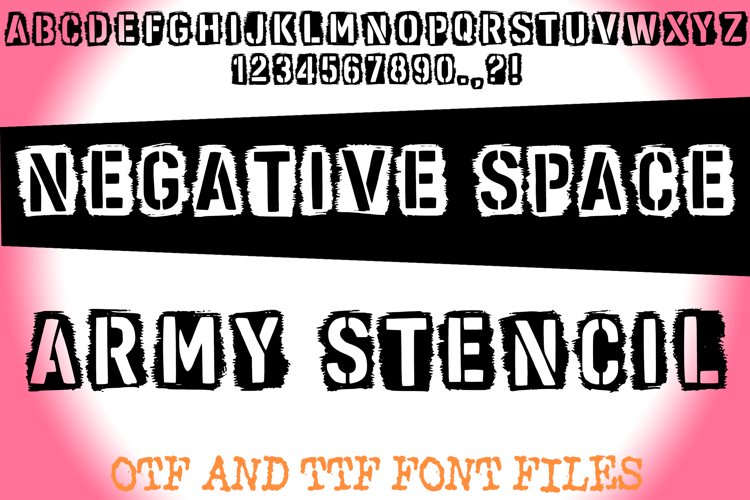
Negative Space Army Stencil Lettering ABC Font Typeface
Command attention with Negative Space Army Stencil Font! This powerful and gritty typeface ingeniously combines the rugged efficiency of military stencils with a striking negative space effect, all encased in a raw, distressed texture. It's more than just a font; it's a strategic visual tool designed to make a bold, impactful, and instantly recognizable statement in any creative project.
Each character in Negative Space Army Stencil Font features classic stencil breaks, but the true brilliance lies in how the letterforms are carved out of a textured, almost painted background. This creates an authentic, worn-out feel, reminiscent of industrial markings, cargo crates, or battle-worn gear. Ideal for crafting military-themed designs, edgy branding, game titles, urban posters, protest art, or any project that demands a strong, tactical, and assertive presence.
Whether you're aiming for an authentic military aesthetic, a grunge vibe, a street art feel, or a distressed industrial look, this font delivers with uncompromising style. Its clever use of negative space ensures readability while injecting a raw, artistic character that stands out dramatically from conventional typography.
If you're looking to infuse your designs with a sense of bold command, unique texture, and undeniable visual intrigue, Negative Space Army Stencil Font is your ultimate weapon. Deploy your message with impact!